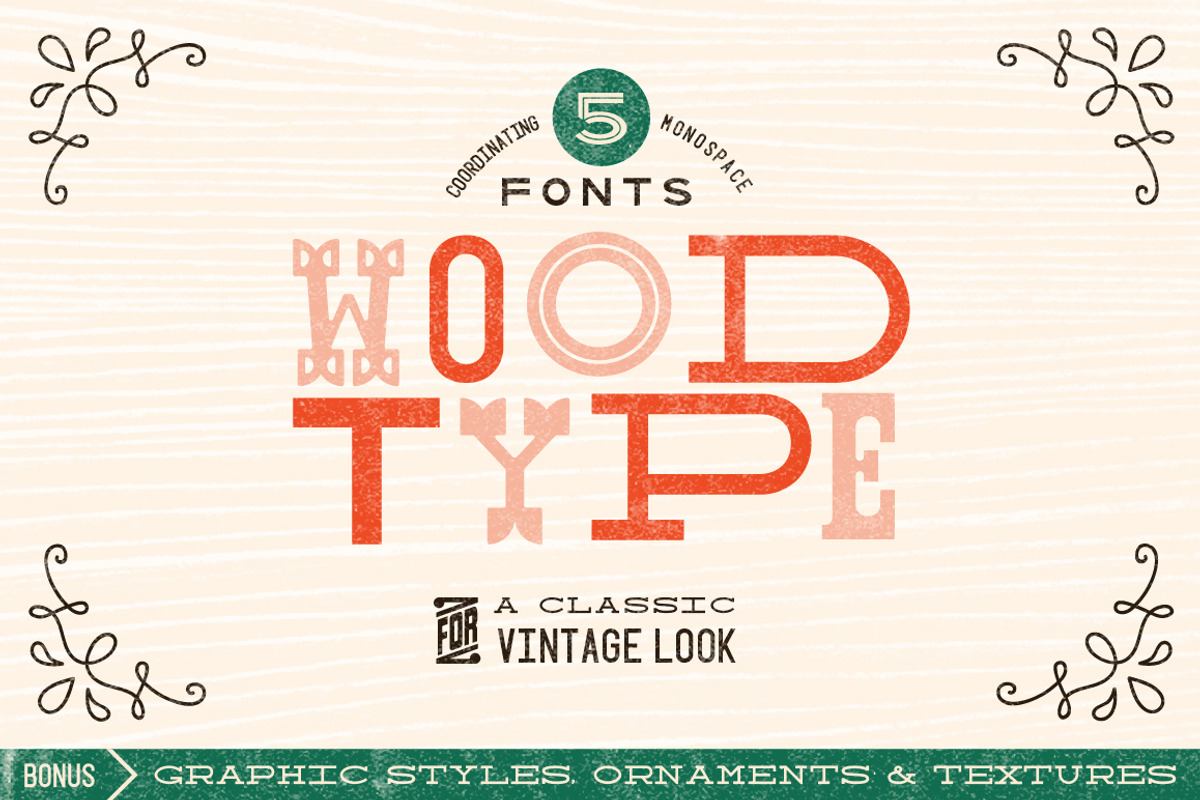
Wood Type Font Collection Free Download
Wood Type Font Collection Free Download is a diverse set of fonts inspired by classic woodblock printing techniques. With its bold, rustic letterforms and vintage charm, this collection is perfect for creating designs with a handcrafted, retro feel. Featuring a mix of serif and sans-serif styles, the collection is ideal for posters, logos, headlines, packaging, and any project that needs a touch of old-school typography.
Whether you're designing for a vintage brand, a rustic product, or creating event materials with a retro vibe, the Wood Type Font Collection offers versatile options that evoke the timeless craftsmanship of traditional printing methods.